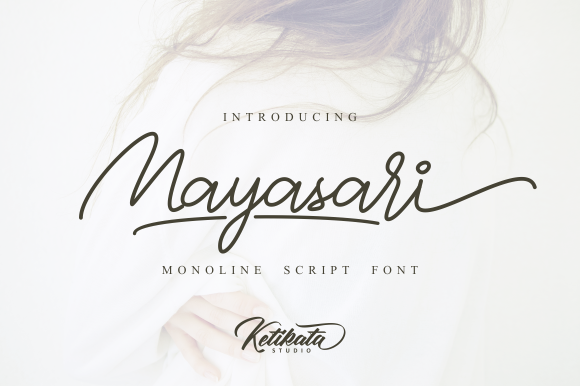
Welcome to the enchanting realm of Mayasari, a script font born from the desire to capture the magic of handwritten beauty. This awe-inspiring font from Ketikata Studio exudes a charm that is both timeless and refreshingly modern, offering a universe of creative possibilities for your digital endeavors.
Mayasari's delicate strokes dance across the screen, evoking a sense of authenticity that will captivate your audience. Dive into the realm of elegance as you explore the boundless opportunities this font presents. Enchanting and inviting, Mayasari is meticulously crafted to transform ordinary words into captivating expressions of art.
With Mayasari, you have the power to craft designs that speak directly to the heartstrings of your audience. Let your imagination bloom as you explore the limitless ways in which this font can elevate your projects. Whether you're designing logos, crafting social media graphics, or writing soul-stirring letters, Mayasari will infuse your creations with an air of unmistakable charm.
Go beyond the boundaries of ordinary fonts and embrace the enchanting allure of Mayasari. Open a new chapter of creativity and watch as your designs take on a life of their own. Discover the world of Mayasari, where every stroke tells a story and every letter is a work of art.
Fall in love with the effortless beauty of Mayasari and unlock the magic of handwritten elegance. Embark on a creative journey like no other, where your dreams come to life through the power of typography. Mayasari awaits, ready to ignite your imagination and leave your audience spellbound.